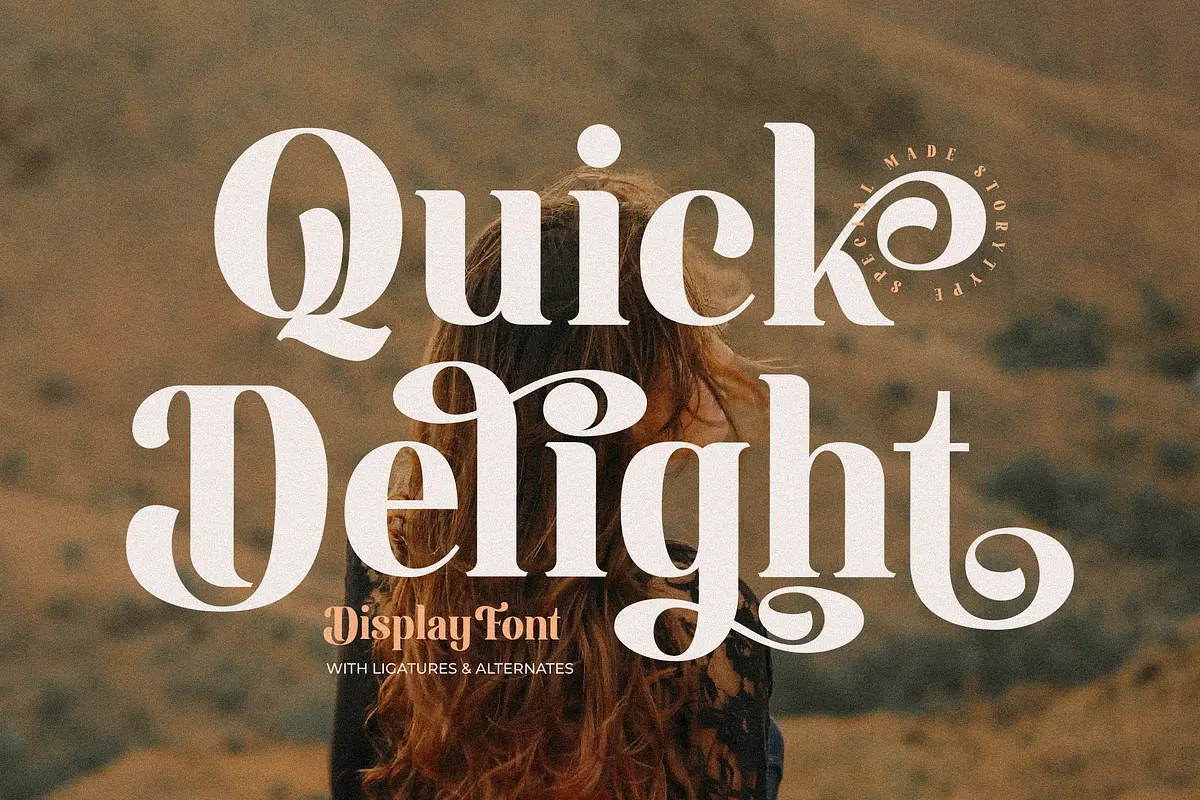
Quick Delight Display Font Free Download
You must purchase this font for commercial use. However, you can download Quick Delight Display Font Free Download for testing purposes. Quick Delight is a bold and eye-catching display font that brings a fun and lively vibe to your designs. With its unique character and modern aesthetic, it’s perfect for headlines, logos, posters, branding, and anything that requires a strong visual presence.
The clean and dynamic letterforms of Quick Delight make it stand out while still maintaining excellent readability. Whether you're working on a vibrant marketing campaign, a playful event flyer, or an exciting brand identity, this font will bring energy and creativity to your typography.